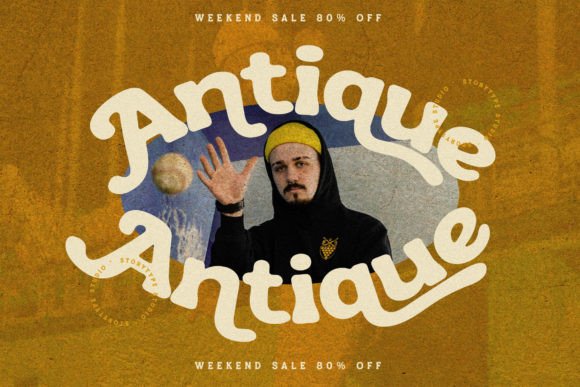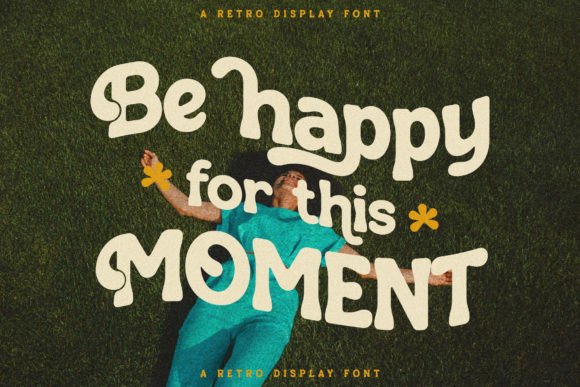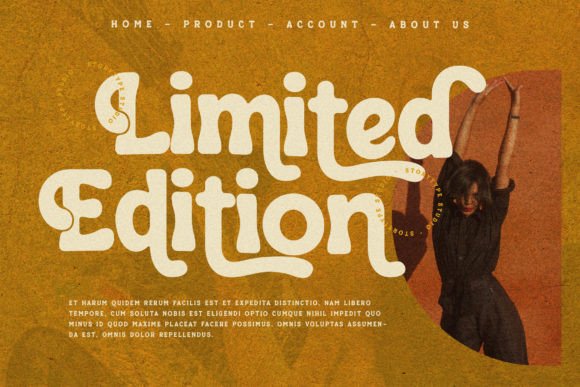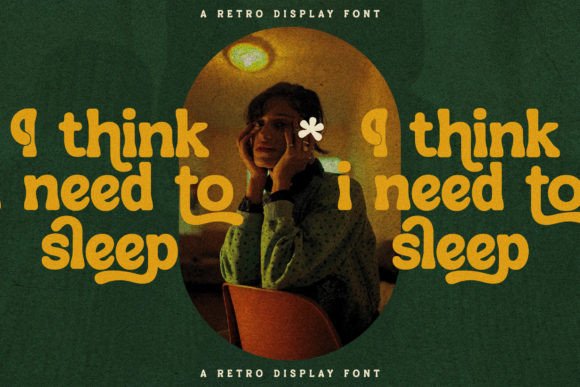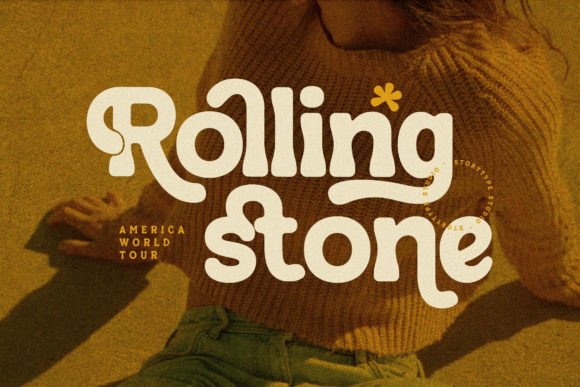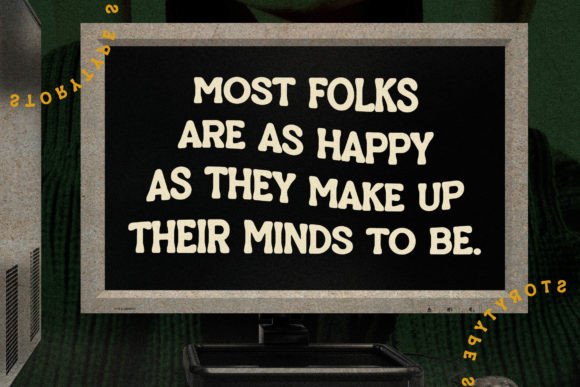
Introduction to Retosta Font
As a designer, you’ve probably been there – staring at a blank canvas, trying to bring your creative vision to life. The perfect font can make all the difference, transporting your design from bland to grand. For me, that moment came when I stumbled upon the Retosta Font – a stylish display font that exudes elegance and vintage charm.
With its high-quality design and transparent background, the Retosta Font is the perfect addition to any creative project. Whether you’re designing a logo, label, or poster, this font is sure to elevate your design to the next level. And the best part? It’s available for free download, making it a valuable resource for designers of all levels.
As a go-to design resource, the Retosta Font is a must-have for any creative project. Its unique blend of style and sophistication makes it the perfect choice for designers looking to add a touch of refinement to their work. In this article, we’ll dive deeper into the world of the Retosta Font, exploring its features and benefits, and showing you how to get the most out of this incredible design resource.
Key Features of Retosta Font
- High-quality font with a transparent background, ideal for creative projects.
- Features a unique, modern design that adds a touch of sophistication to any project.
- Includes multiple weights and styles, allowing for versatility and customization.
- Designed with high resolution in mind, suitable for use in print and digital media.
- Perfect for designers and artists looking for a high-quality, free font to enhance their creative project.
Honest Review: Retosta Font
I recently had the chance to try out the Retosta Font and I must say, it’s a solid addition to any design resource. With its high quality and modern feel, I could see it being a great fit for a variety of creative projects.
That being said, I did encounter a few limitations. The font doesn’t come in as many weights as some other fonts I’ve used, which can be a bit restrictive. Additionally, the character set is a bit limited, which may not be ideal for more complex designs. ⚠️
Overall, I think the Retosta Font is a great choice for designers who are looking for a high-quality, easy-to-use font for their creative project. With a few tweaks to the weight and character set options, I think it could be a real game-changer. For now, it’s a solid addition to any design resource.